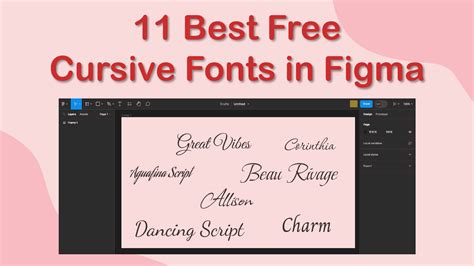
Best Script Fonts for Figma Design Projects
Readers, have you ever struggled to find the perfect font for your Figma design projects? Figma is a collaborative design platform that's become a favorite among designers, and choosing the right font is crucial to making your designs stand out. Script fonts, with their flowing, handwritten style, add a unique touch and can elevate your designs to new heights. But with so many options available, how do you navigate the world of script fonts and select the ones that best suit your projects?
I've been analyzing the best script fonts for Figma design projects for years, and I'm here to share my expertise with you. Whether you're designing logos, social media graphics, invitations, or even websites, the right script font can make all the difference. Let's dive into the world of script fonts and discover the best choices for your Figma projects.
Understanding Script Fonts: A Deeper Dive
Script fonts, also known as cursive fonts, are designed to mimic handwritten lettering. They offer a flowing, elegant, and often personalized aesthetic that can add a touch of sophistication and charm to your designs. But understanding the nuances of script fonts is key to choosing the right one for your project. Here's a breakdown of some important considerations.
Types of Script Fonts
Script fonts come in various forms, each with unique characteristics:
- Formal Script Fonts: These fonts are known for their elegant and refined appearance, making them suitable for invitations, wedding stationery, and high-end branding.
- Casual Script Fonts: These fonts have a more relaxed and playful feel, perfect for social media graphics, handwritten notes, and branding for casual businesses.
- Modern Script Fonts: Modern script fonts blend traditional cursive styles with contemporary elements, offering a unique and versatile aesthetic for a wide range of projects.
Choosing the Right Script Font for Your Project
Selecting the appropriate script font for your project is essential for achieving the desired look and feel. Consider these factors:
- Project Style: The overall style of your project, be it formal, casual, or modern, should guide your font selection. A formal script font would be an excellent choice for a wedding invitation, while a casual script font might be better suited for a social media post.
- Brand Identity: If you're designing for a brand, ensure the script font aligns with the brand's personality and values. A script font that reflects the brand's target audience and messaging will be more effective.
- Readability: While script fonts can be visually appealing, prioritize readability. Avoid fonts that are overly elaborate or difficult to decipher, especially for large amounts of text.
Top 10 Script Fonts for Figma Design
Finding the right script font for your Figma design project can be overwhelming, but I've curated a list of 10 exceptional script fonts that will add a touch of elegance and sophistication to your designs. These fonts are widely used and highly regarded within the design community, ensuring your projects stand out with style:
- Dancing Script: A playful and charming script font with a touch of whimsy. Perfect for social media graphics, branding for creative businesses, and invitations.
- Great Vibes: This font exudes a vintage, retro vibe, ideal for projects requiring a nostalgic or whimsical feel. It's suitable for posters, logos, and social media graphics.
- Allura: A classic script font with a touch of elegance and sophistication. It's perfect for invitations, wedding stationery, and branding for businesses that want to convey a sense of luxury.
- Reenie Beanie: A charming and playful script font with a modern twist. Great for logos, social media graphics, and branding for businesses that want to convey a youthful and energetic feel.
- Pacifico: A casual and friendly script font with a relaxed vibe. Perfect for social media graphics, branding for casual businesses, and handwritten notes.
- Alex Brush: This script font is bold and dramatic, making a statement in any design. Ideal for posters, logos, and branding for businesses that want to convey power and confidence.
- Satisfy: A modern and minimalist script font with a clean and elegant look. Perfect for websites, branding, and logos that require a sophisticated and professional feel.
- Lobster: A playful and bold script font with a distinct personality. Perfect for posters, logos, and branding for businesses that want to convey a quirky and fun-loving vibe.
- Berkshire Swash: This script font has a classic, elegant feel with a touch of personality. Great for invitations, wedding stationery, and branding for businesses that want to convey a sense of tradition and sophistication.
- Rochester: A bold and dramatic script font with a vintage feel. Perfect for posters, logos, and branding for businesses that want to convey a sense of history and heritage.